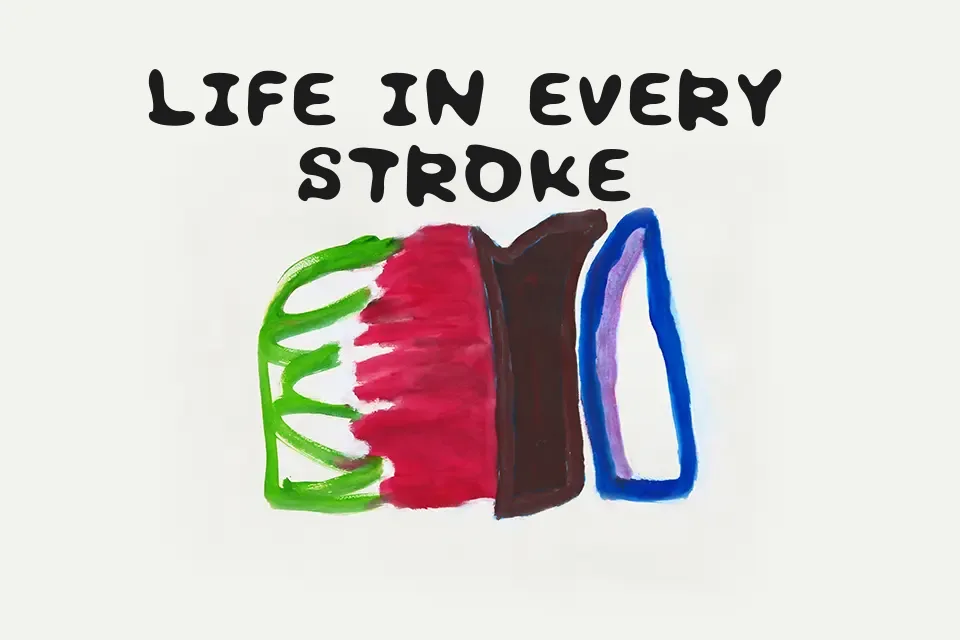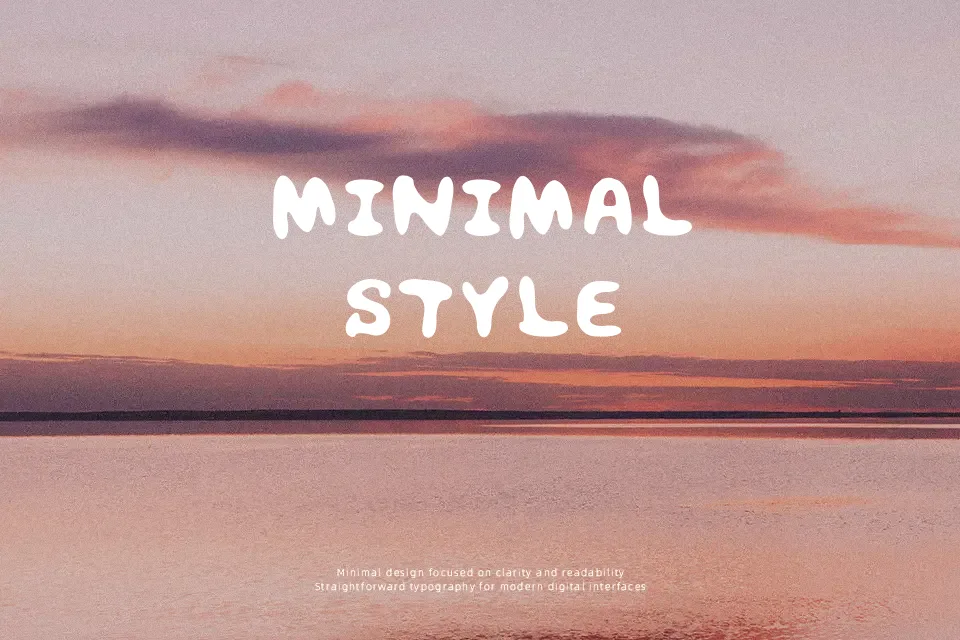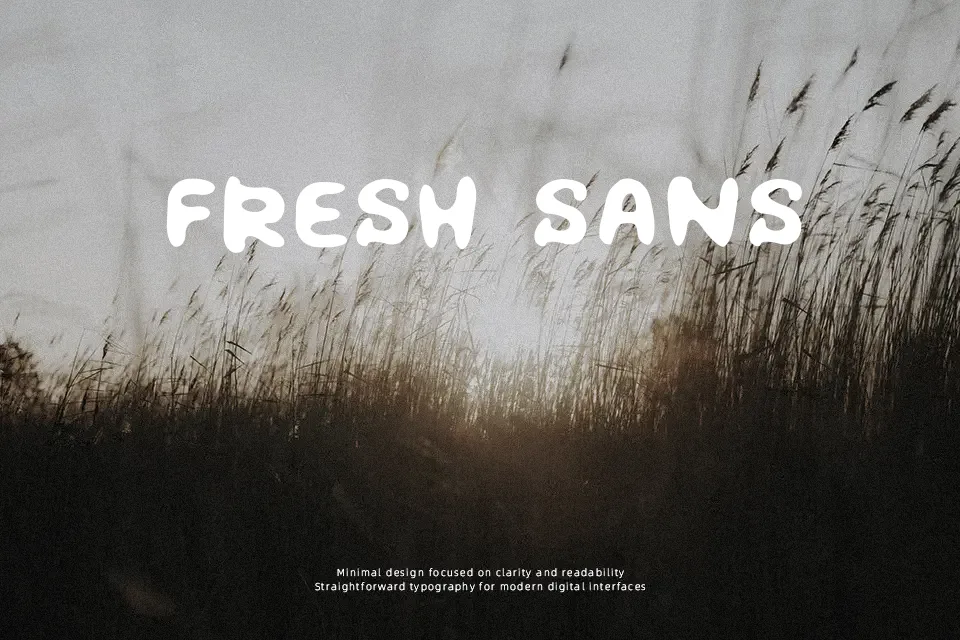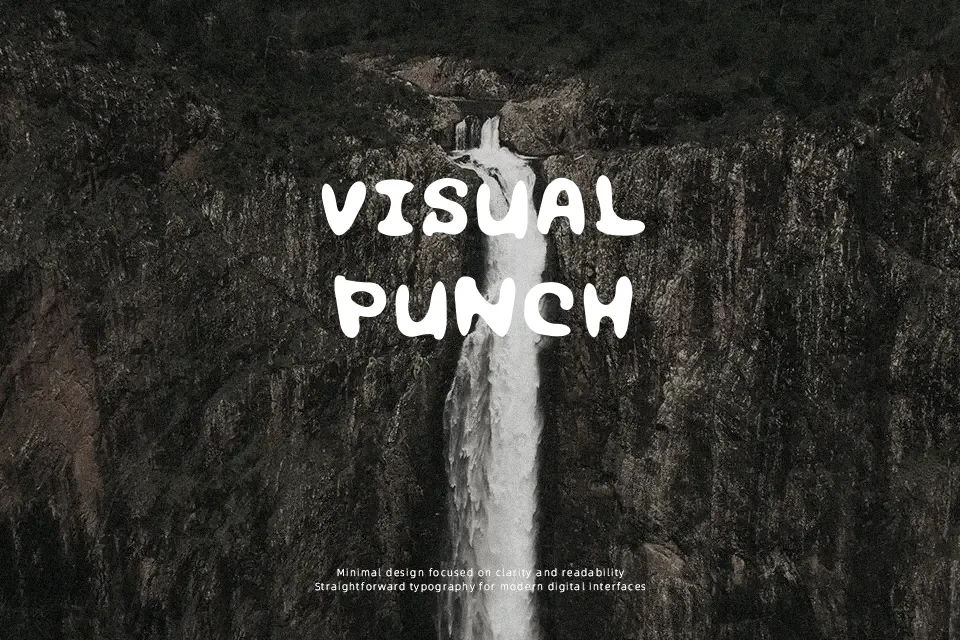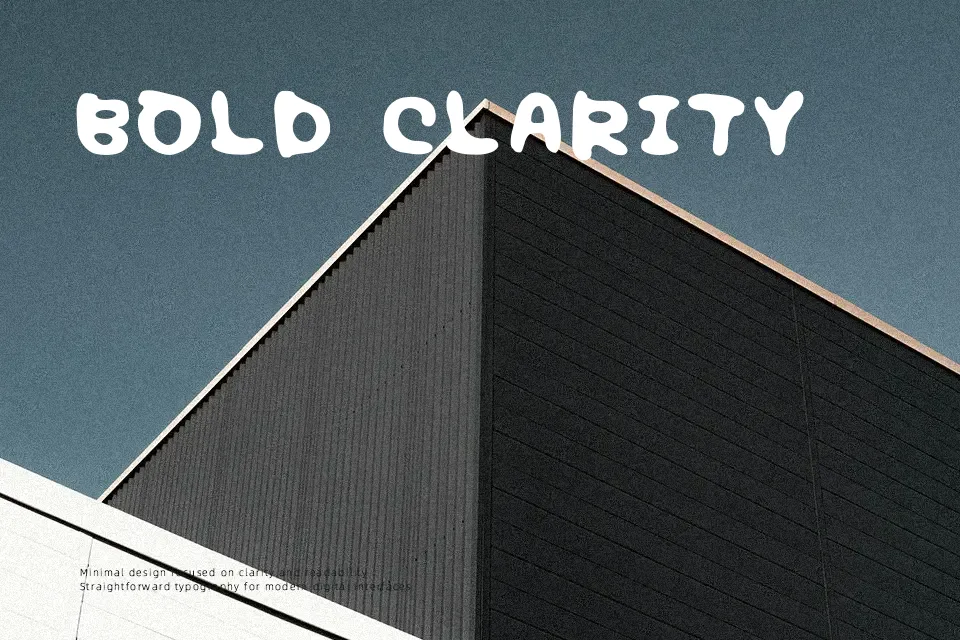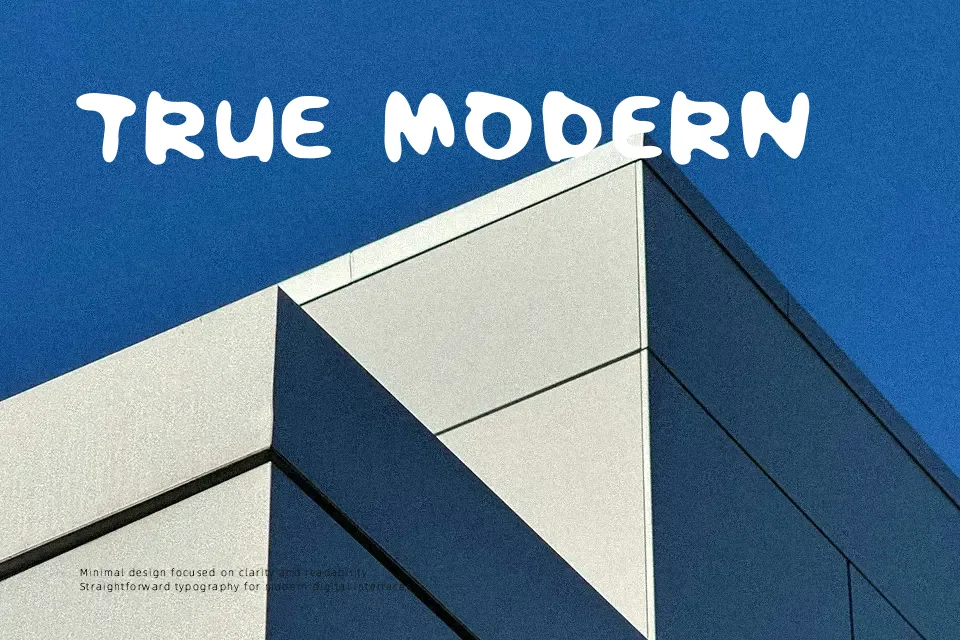
Chocolate Syrup Font
Chocolate Syrup Font delivers a distinctly soft, cartoon aesthetic characterized by heavy, fluid strokes and generously rounded terminals. The typeface exhibits wide proportions with low stroke contrast, creating a plump, melting appearance across both uppercase and lowercase glyphs. Spacing between characters is relatively compact, which keeps headline compositions tight and visually unified. Readability remains strong at larger display scales, making the design suitable for confectionery packaging, children’s storybook titles, casual restaurant logos, and promotional merchandise graphics. However, the dense anatomy and exaggerated bulk cause letterforms to lose definition in small body text, making the font unsuitable for extended editorial paragraphs.
Best For: confectionery packaging, children’s book covers, dessert menu headers, party poster headlines
Not Ideal For: long body text, corporate financial reports, technical documentation, mobile interface captions